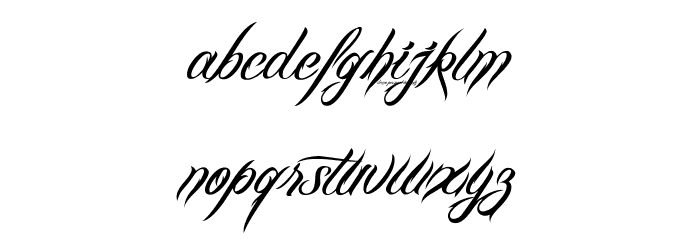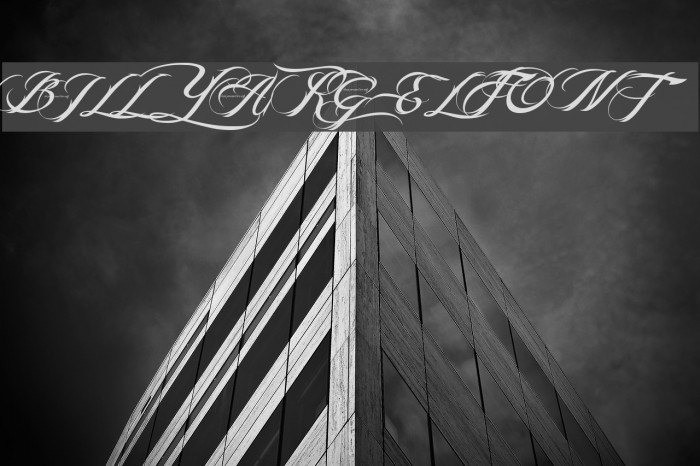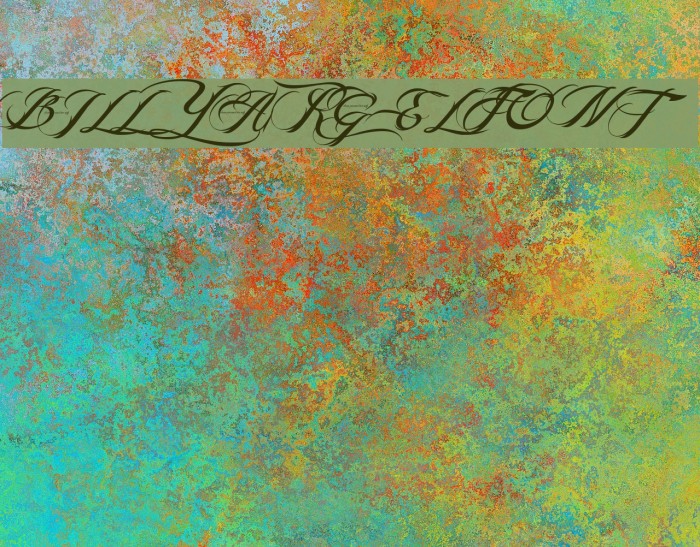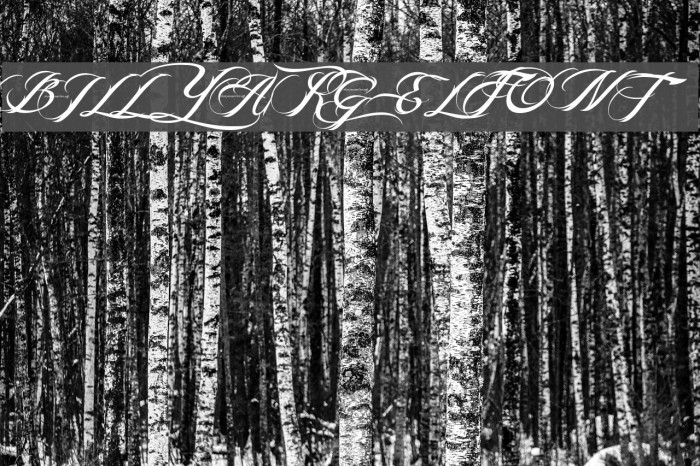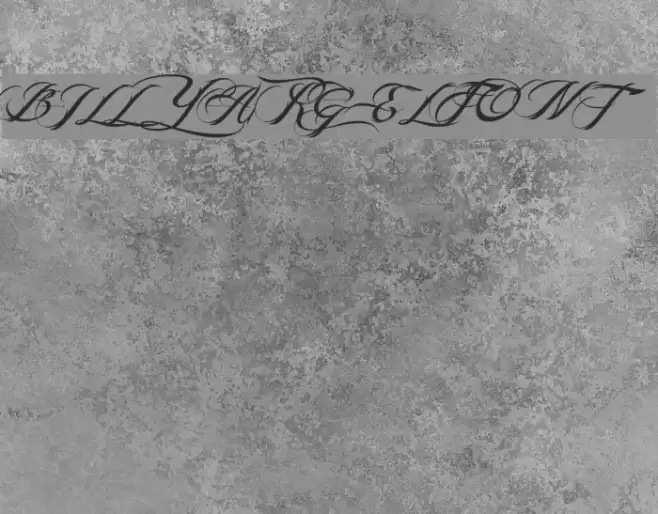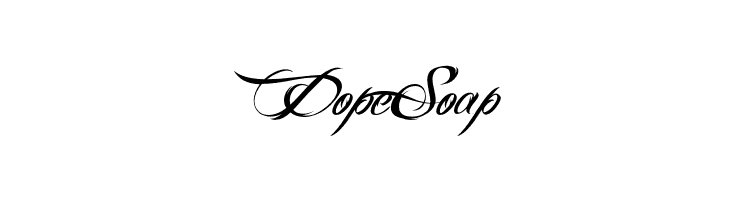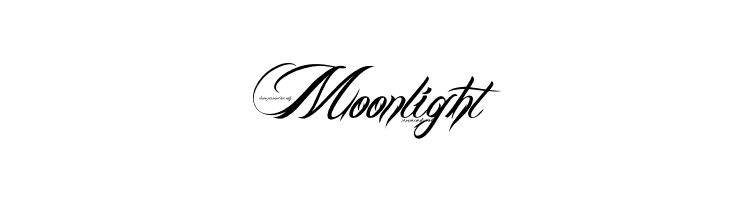
BILLY ARGEL FONT Font
This font features an elaborate and ornate script style, characterized by its flowing, interconnected letters and intricate swirls. The uppercase letters are particularly decorative, with extended flourishes that give a sense of elegance and sophistication. The lowercase letters maintain a consistent style, offering a harmonious blend of curves and sharp edges. This font exudes a sense of drama and artistry, making it suitable for projects that require a touch of luxury and refinement. The overall appearance is both bold and graceful, with a high level of detail that captures attention.
An ornate and elegant script font with intricate flourishes.
- Proposed Projects: Ideal for wedding invitations, luxury branding, high-end product packaging, and artistic posters.
- Character Spacing: Tight
- Use Case: Logos, Invitations, Headlines